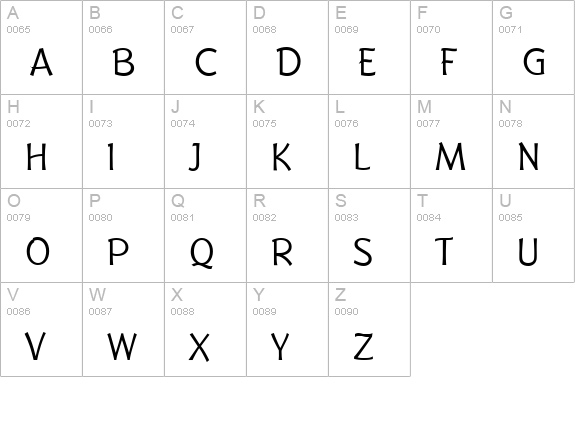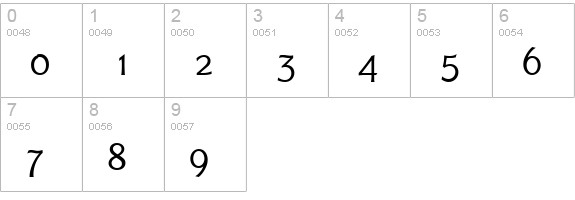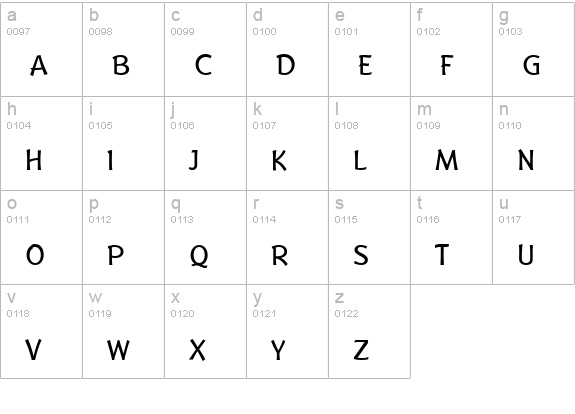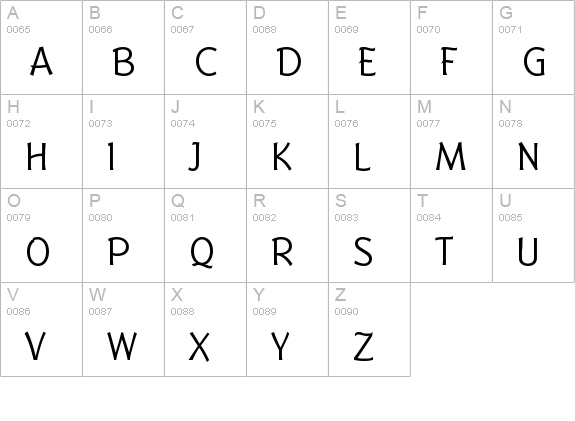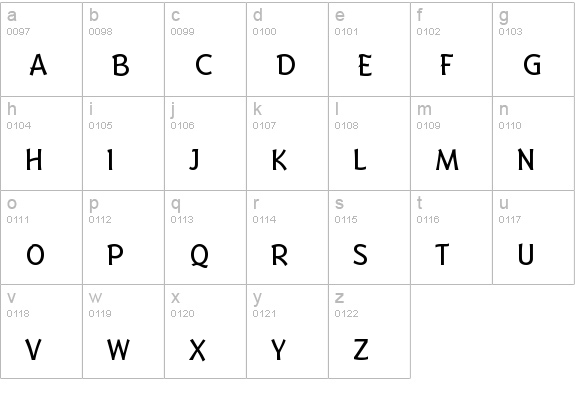
BadgerLightExpert Font Details
BadgerLightExpert is a sleek and stylish font that exudes sophistication and modernity. With its clean lines and elegant curves, this font is perfect for projects that require a touch of class and professionalism. The BadgerLightExpert font features a unique blend of sharp angles and soft edges, giving it a dynamic and versatile look that can adapt to a variety of design aesthetics. What sets BadgerLightExpert apart is its exceptional readability and legibility, making it an excellent choice for body text or headings. Whether used for print or digital media, this font will captivate your audience and leave a lasting impression. Best of all, BadgerLightExpert is available for free download at FontsMarket.com, making it accessible to all designers and creatives looking to elevate their projects with a high-quality font. Don't miss out on the opportunity to add BadgerLightExpert to your font library and take your designs to the next level.